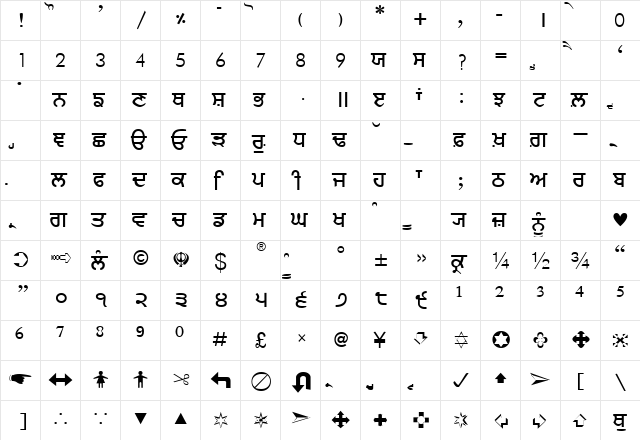
Janmeja2920 Normal Font Preview
Janmeja2920 Normal
Janmeja2920 Normal Font Details
Design Context for Janmeja2920 Typeface
Janmeja2920 offers clean, dependable letterforms without strong stylistic allegiance, making it a practical choice for designers who need flexibility.